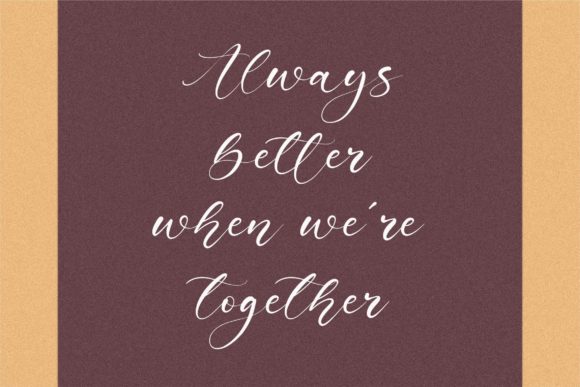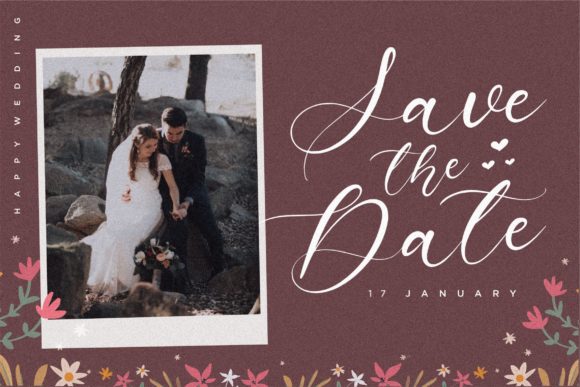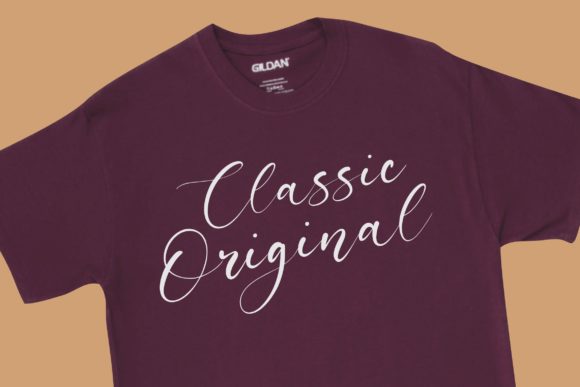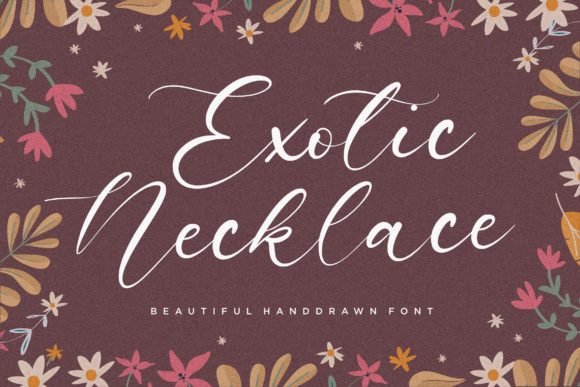
Introduction to Exotic Necklace Font
Exotic Necklace is a thin and elegant handwritten font.
Use it to make your ideas even more realistic and create spectacular designs .
Exotic Necklace Font offers exceptional quality and versatility, making it a valuable addition to your design toolkit. Whether you’re creating for personal projects or commercial use, Exotic Necklace Font delivers professional results.